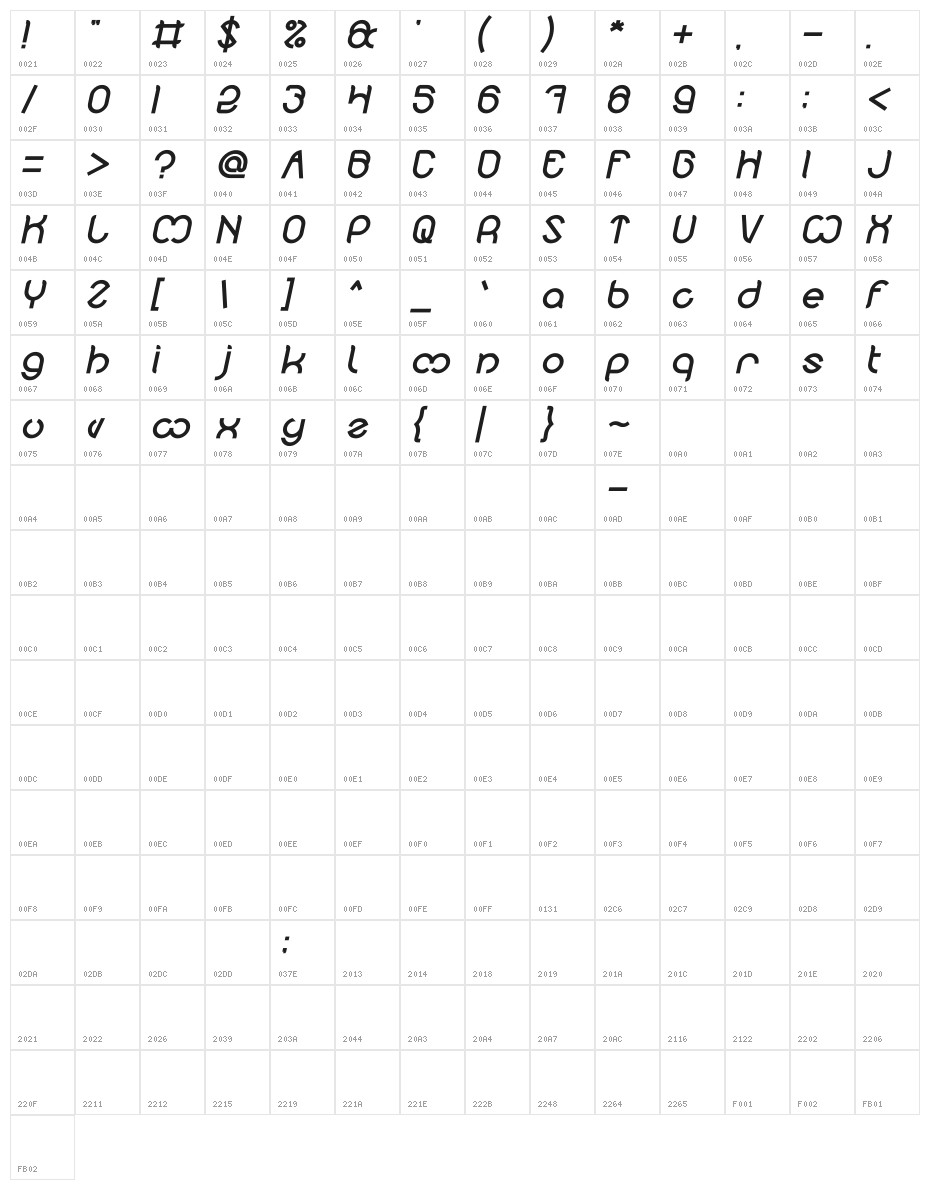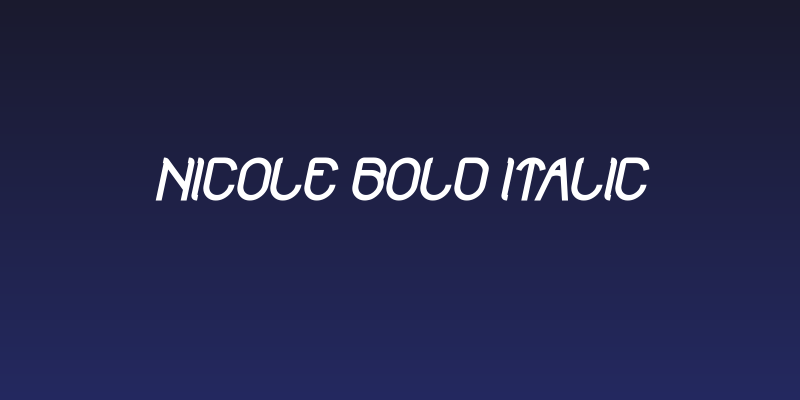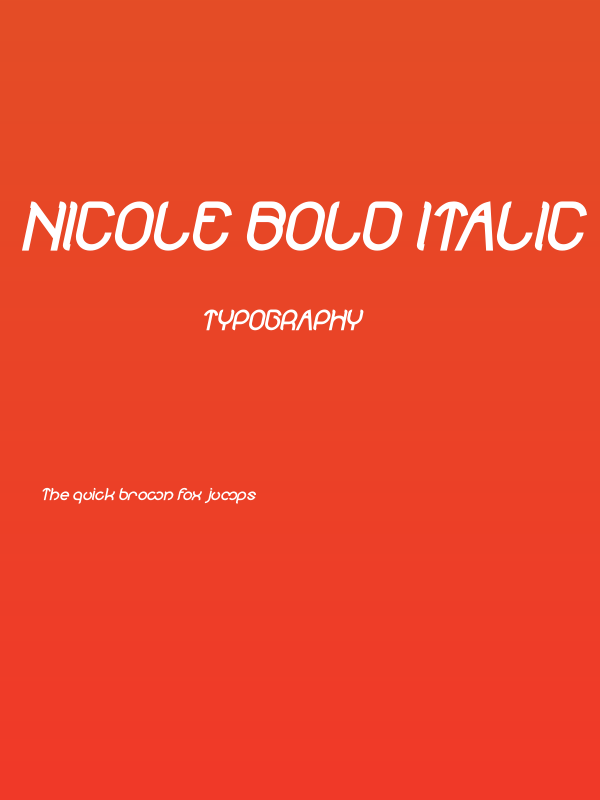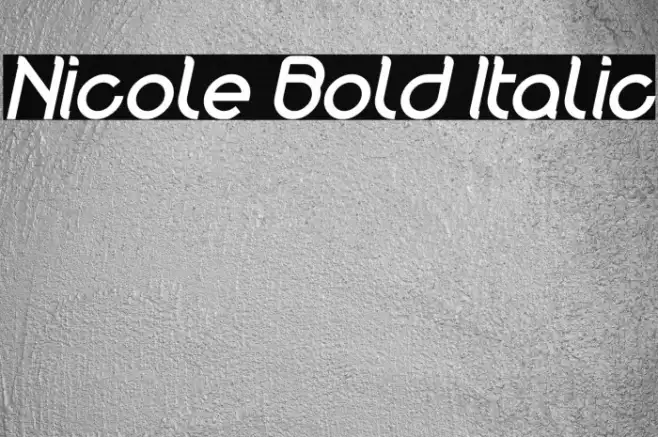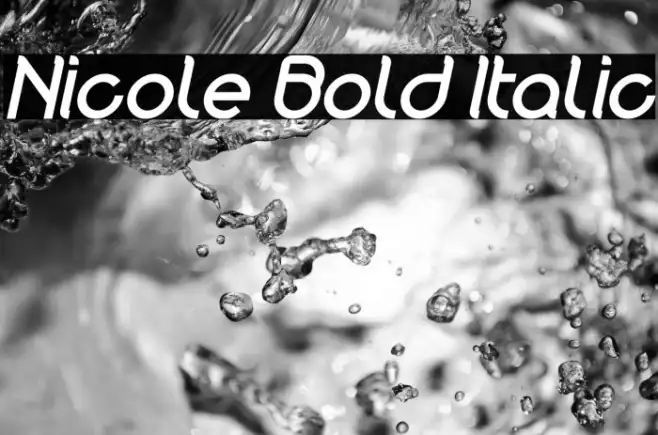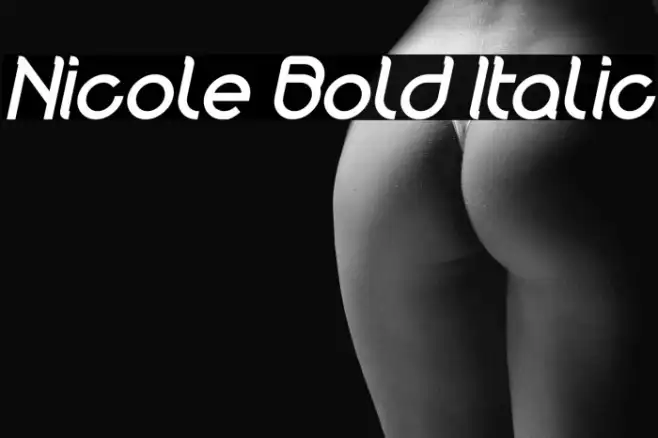
Nicole Bold Italic Font
Nicole Bold Italic Description
This font features a bold and italicized style with a modern, dynamic flair. The characters are slightly slanted, giving a sense of motion and energy. The strokes are thick and consistent, providing a strong visual impact. The rounded edges of the letters add a touch of softness, balancing the boldness. The uppercase and lowercase letters maintain a cohesive look, with the lowercase letters mirroring the style of the uppercase. The numerals are clear and bold, matching the overall aesthetic. Special characters are designed with the same attention to detail, ensuring they integrate seamlessly with the rest of the font.